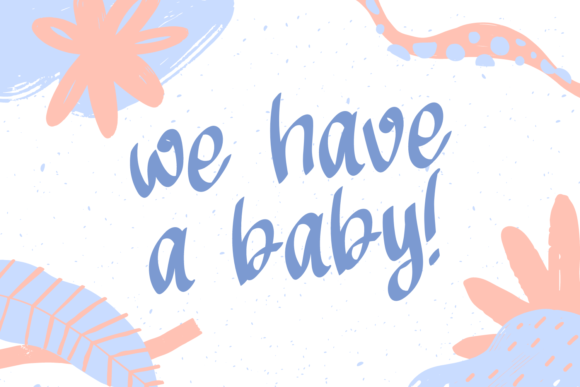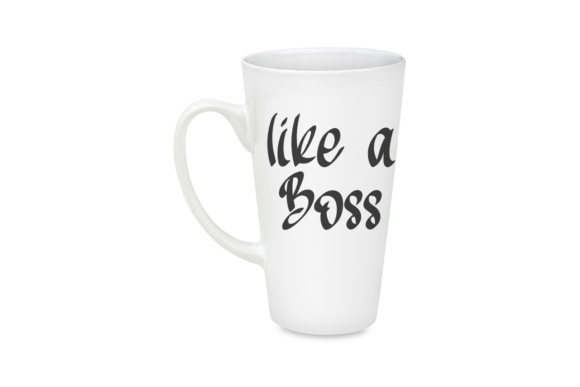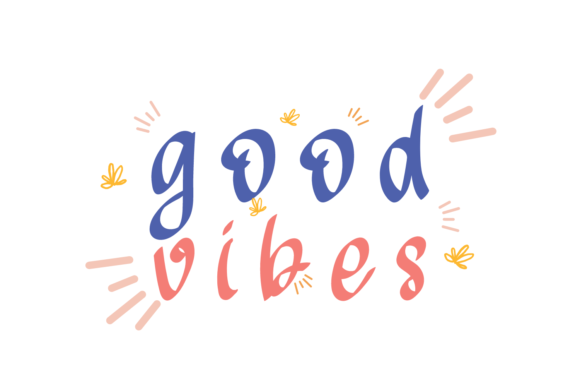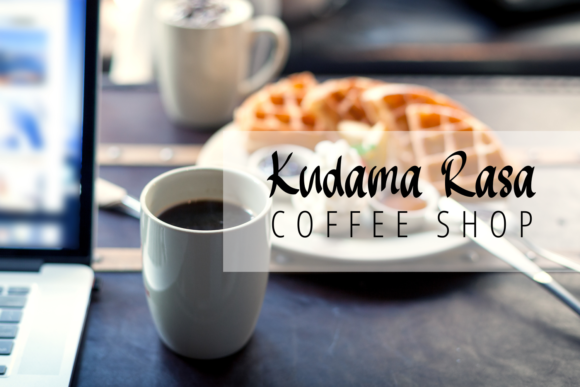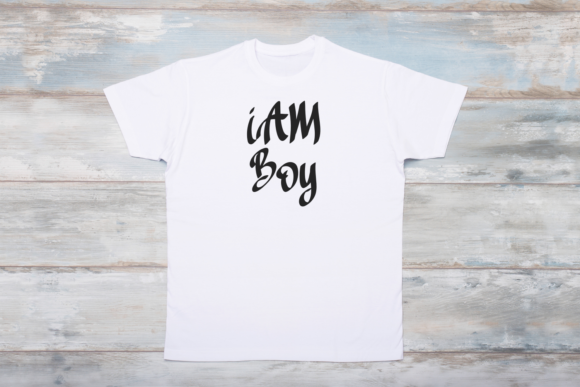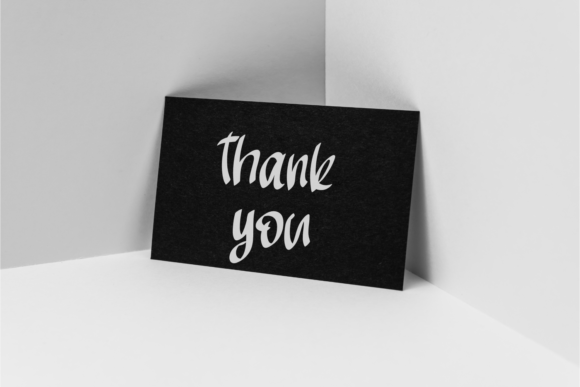
Discover the Elegance of Alluna Font: Elevate Your Designs to New Heights
Are you on the hunt for a font that exudes sophistication, elegance, and a touch of modern flair? Look no further than the Alluna Font. This exquisite handwritten font is meticulously crafted to capture the essence of classy calligraphic influences while maintaining a contemporary and fresh feel. In this article, we’ll dive into the world of Alluna Font, exploring its unique features, and how it can elevate your design projects to the highest levels.
The Allure of Alluna Font
Alluna Font is more than just a typeface; it’s an artistic expression that combines the beauty of traditional calligraphy with the versatility of modern design. Its elegant strokes, precise letterforms, and flowing connections make it an ideal choice for designers and crafters seeking to add a touch of sophistication to their work.
Whether you’re working on a branding project, creating wedding invitations, or designing social media graphics, Alluna Font is sure to make a lasting impression. Its unique blend of classic and contemporary elements allows it to seamlessly integrate into various design styles, making it a versatile addition to your font collection.
Key Features of Alluna Font
- Exquisite Handwritten Design: Alluna Font boasts a beautiful, handwritten design that adds a personal touch to any project.
- Classy Calligraphic Influences: The font’s calligraphic roots give it an air of sophistication and elegance.
- Contemporary and Fresh Feel: Alluna Font’s modern twist ensures it stays relevant and stylish in today’s design landscape.
- Versatile and Adaptable: The font’s versatility makes it suitable for a wide range of design applications, from print to digital media.
Why Choose Alluna Font?
With so many fonts available, why should you choose Alluna Font for your design projects? Here are just a few compelling reasons:
- Unique and Memorable: Alluna Font’s distinctive design ensures your projects stand out from the crowd and leave a lasting impression.
- Easy to Read: The font’s clear and legible letterforms make it perfect for body text, headings, and titles.
- Time-Saving: With Alluna Font, you can achieve professional-looking results without spending hours on design.
- Constantly Updated: The font is regularly updated with new features, ensuring you stay ahead of the design curve.
How to Use Alluna Font in Your Designs
Integrating Alluna Font into your design workflow is seamless. Here are some ideas to get you started:
- Branding and Logos: Use Alluna Font to create stunning logos, business cards, and brand identity materials.
- Wedding and Event Design: Add a touch of elegance to your wedding invitations, save-the-dates, and event branding.
- Social Media Graphics: Elevate your social media presence with eye-catching graphics, quotes, and promotional materials.
- Packaging and Product Design: Use Alluna Font to create beautiful packaging, labels, and product designs.
| Font Name | Alluna Font |
| Author | Al Ghul |
In conclusion, Alluna Font is a masterpiece of modern calligraphy, offering a perfect blend of elegance, sophistication, and versatility. Whether you’re a designer, crafter, or DIY enthusiast, this exquisite handwritten font is sure to become a true favorite. With its wide range of applications and ease of use, Alluna Font is an excellent addition to any design arsenal. So why wait? Fall in love with Alluna Font and bring your projects to new heights!